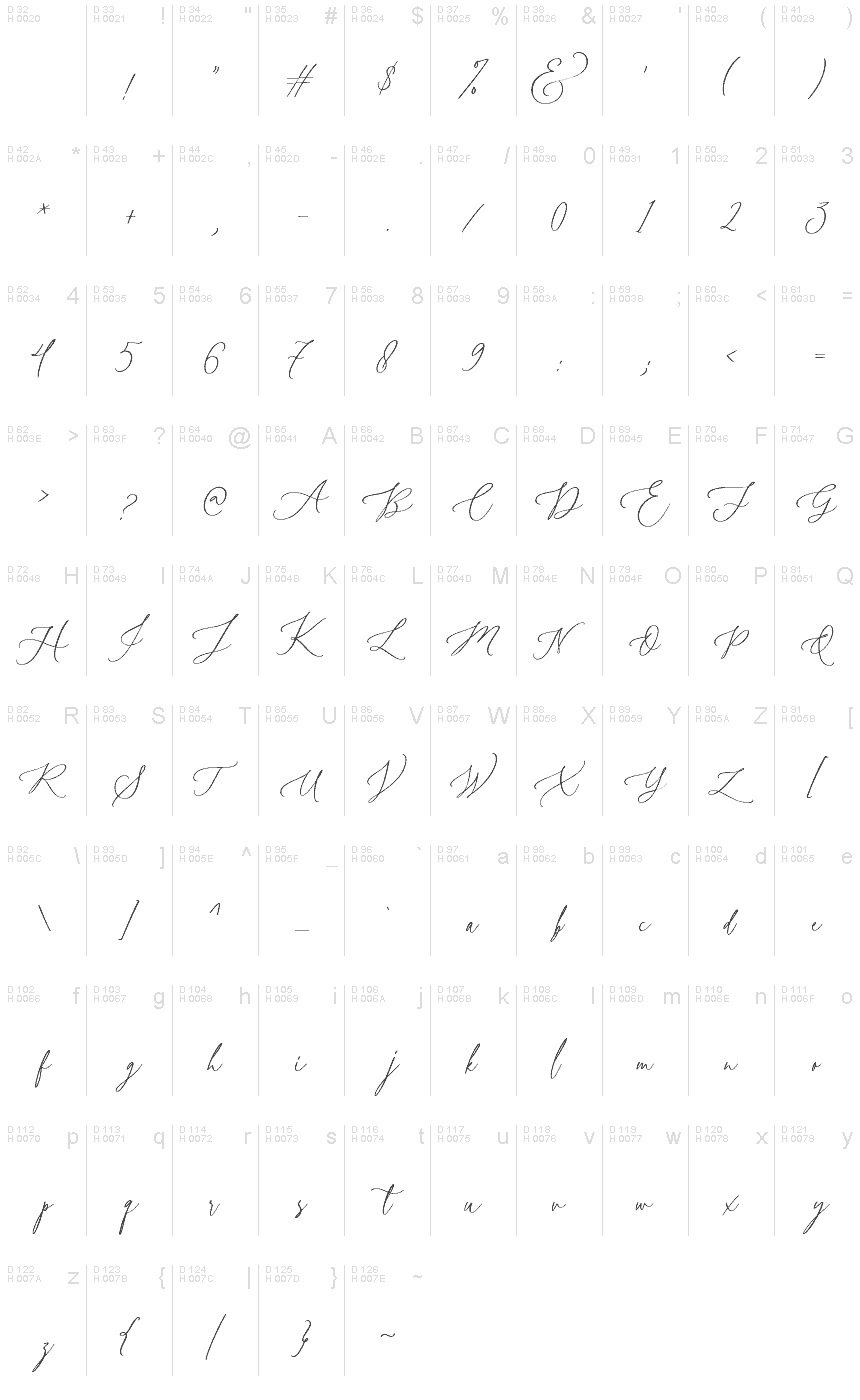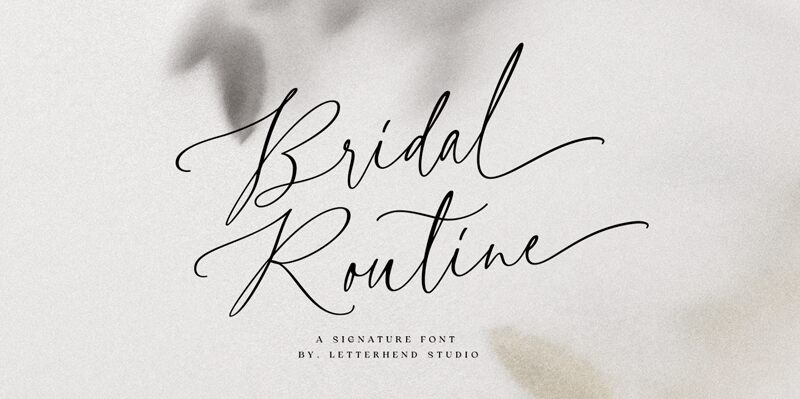
BridalRoutine-Regular
This is Bridal Routine, a handwriting font which looks like it was written with a pen. It includes upper and lower case letters, numbers, and symbols that are perfect for bridal invitations and wedding stationery. It has elegant curves that would look fabulous on branding projects, greeting cards, and apparel items. It’s perfect to add to business cards and book covers as it gives them a delicate look that is easy on the eye.